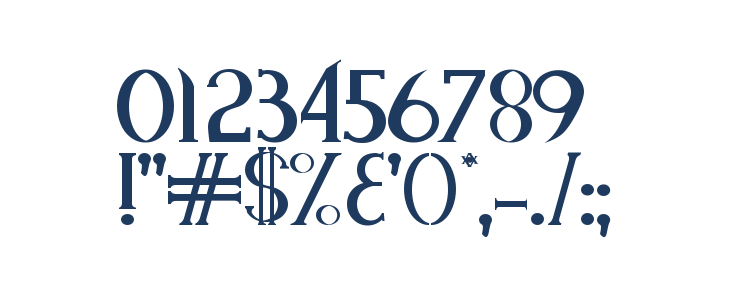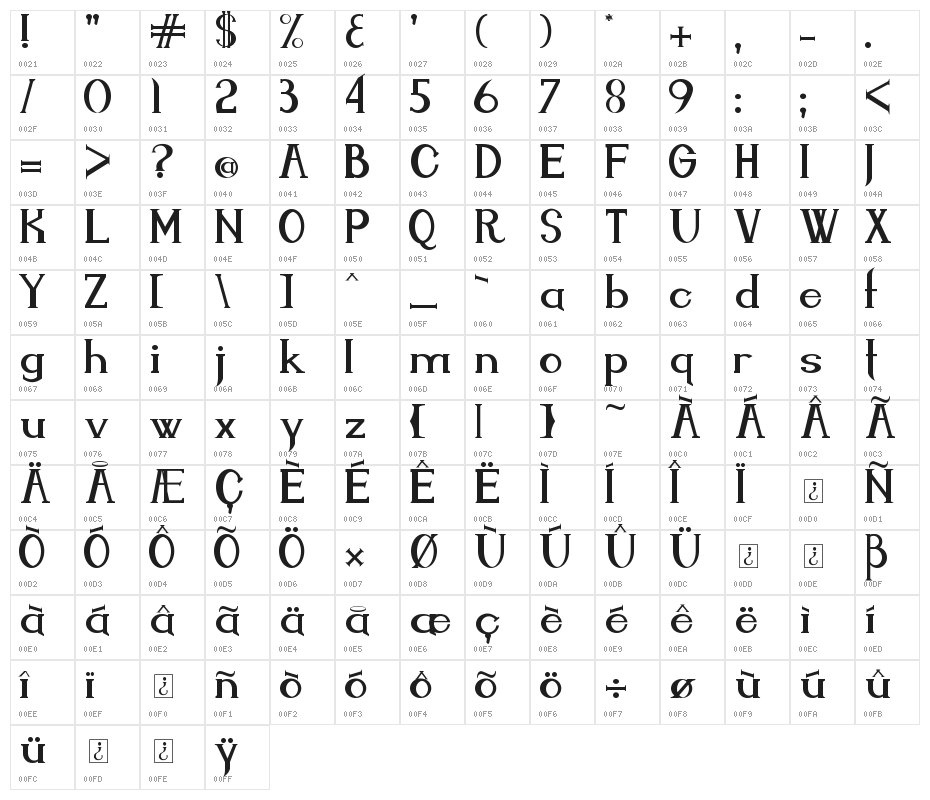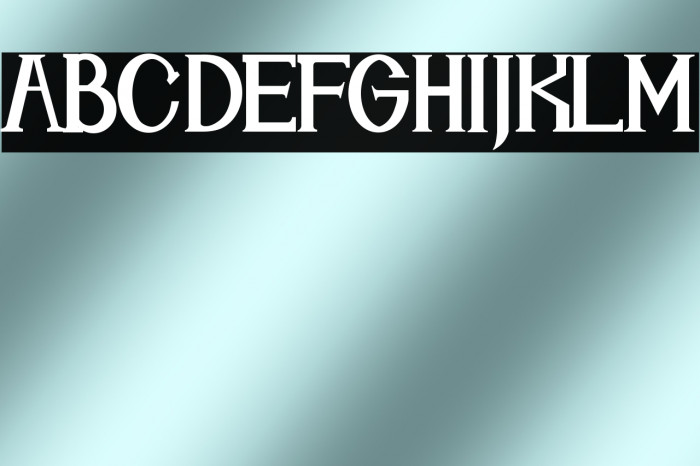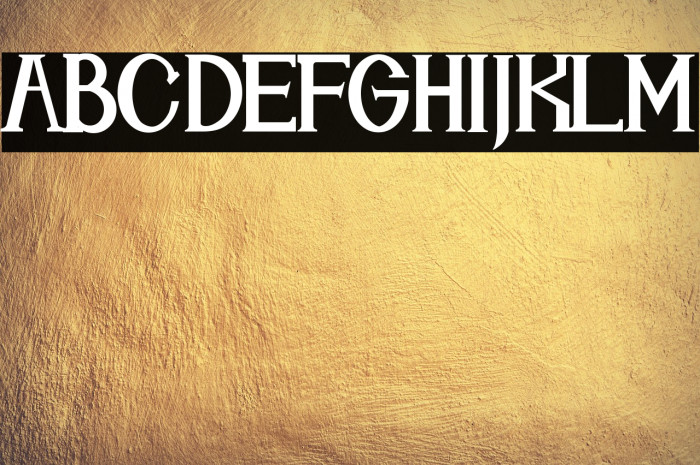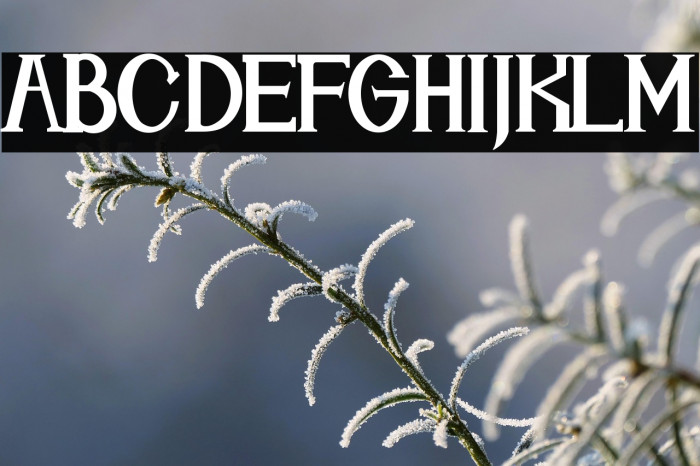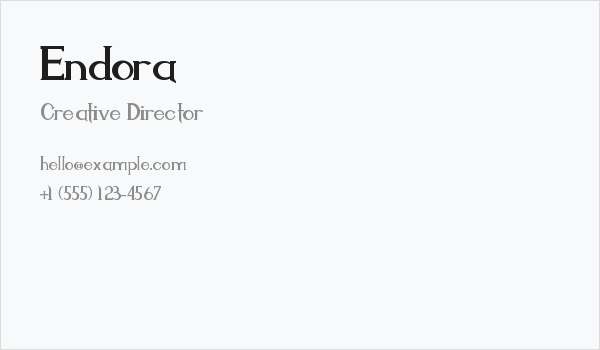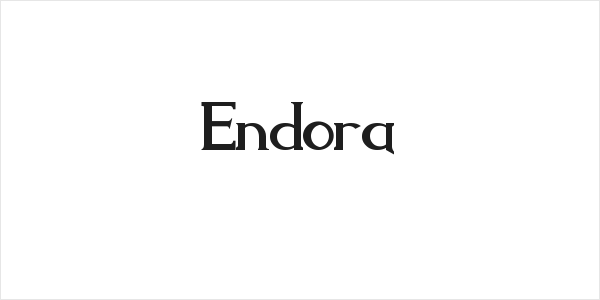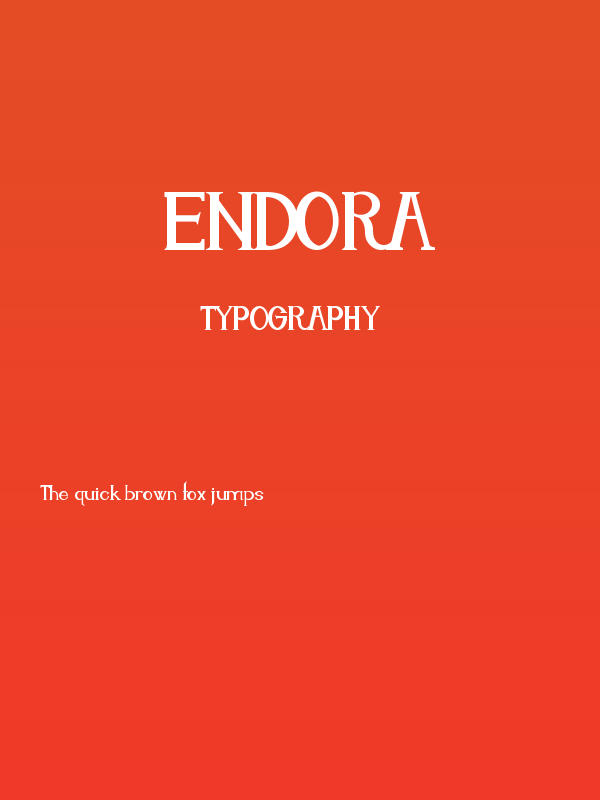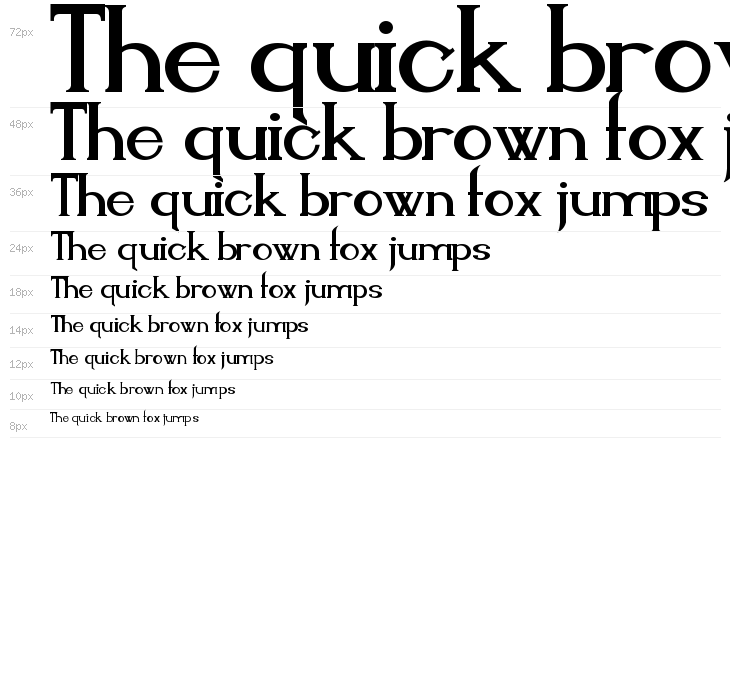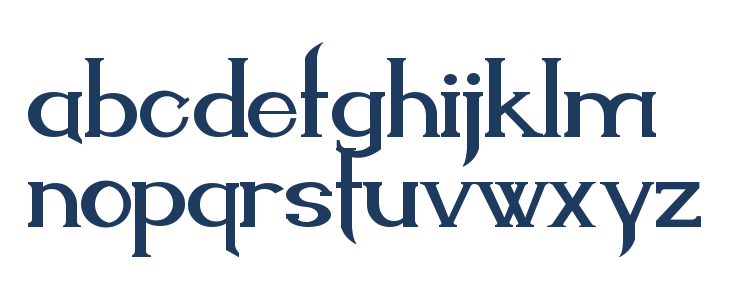
Endora Font
Endora Description
This font exhibits a distinct and artistic style with a blend of classic and modern elements. The uppercase letters are characterized by sharp, angular serifs and a bold presence, while the lowercase letters maintain a more fluid and elegant form. The numerals are uniquely styled, with a consistent stroke weight that complements the overall design. Special characters are creatively integrated, adding to the font's decorative appeal. The font's design is suitable for projects that require a touch of sophistication and creativity.
| Overall Style | Classic, Decorative |
| Proposed Projects | Ideal for branding, posters, book covers, and any project needing a sophisticated and artistic touch. |